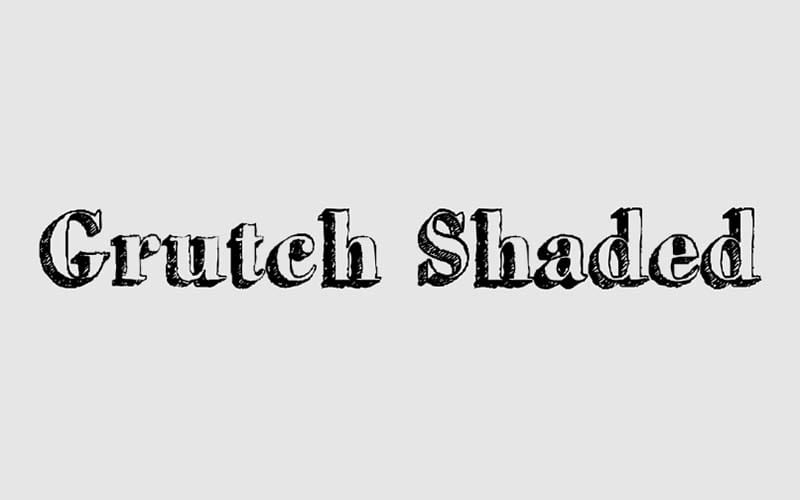
GrutchShaded Font is a free display and handwritten typeface family. That is designed by the way of Steeve Gruson, which is a graceful design creating an appealing 3D structure and is available on Anchor Fonts.
The Novelty font is a design, that is inspired by the unique shadow styles and displays 3D alphabets typography. This font features an awesome, and beautiful appearance.
The free serif font is available in only one unique style and It provides a unique dimension to the letter with faded elements and extra shading. The soft curls add to the characters a touch of sensitivity and personality.
It is ideal for many purposes such as handwritten design, logo design, 3D logo design, brand logo design, shadow logo design, alphabets logo design, project heading, titles, and script.
GrutchShaded Font
| Font Name: | GrutchShaded Font |
| Style: | Fancy, Display, Typeface |
| Font Designer: | Steeve Gruson |
The purpose of its creation was for the attractive handwriting design and its natural wavy features to create a proportionate style that will make your readers interested. It looks great in both upper and lower case with its highly legible glimpses.
Such a collection has resulted in a different family that performs best for both content and display purposes. You can use this royalty-free font anywhere you like and it will help you deliver your design thoughts to a page.